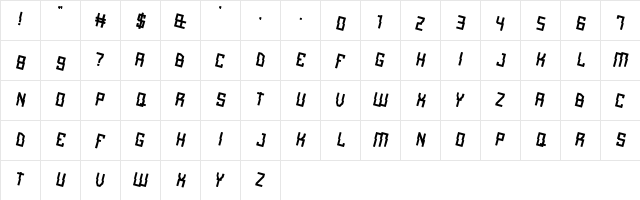
alot of love Regular
Design Context for alot of love Typeface
alot of love takes a measured approach to typography — its balanced proportions and neutral character make it a reliable workhorse for both digital and print work.